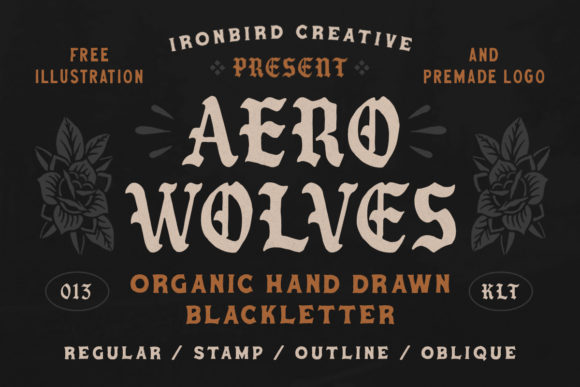
Introducing Aero Wolves Font, a captivating and bold blackletter font that is bound to elevate your creative projects to new heights! Created by ironbirdcreative, this font is specifically designed for T-shirt design enthusiasts who crave uniqueness and originality.
With its cool and edgy vibe, Aero Wolves Font is more than just a typography choice; it's a statement. Its blackletter style adds a touch of vintage charm, while its boldness exudes confidence and strength. Whether you're designing a T-shirt for a special occasion, a brand, or simply expressing your personal style, this font is here to make a lasting impression.
What sets Aero Wolves Font apart is its masterful design that captures attention and leaves a lasting impact. Each letter is meticulously crafted to perfection, ensuring that every word you create becomes a work of art. From its sharp and angular edges to its intricate details, this font embodies the essence of creativity and craftsmanship.
Unleash your imagination and let Aero Wolves Font be your creative companion. Its versatility knows no bounds, allowing you to experiment with various styles and designs. Whether you're going for a bold and rebellious look or a refined and elegant aesthetic, this font adapts effortlessly to your vision.
Embrace the power of emotions with Aero Wolves Font. Its captivating presence evokes a sense of adventure, mystery, and individuality. Let your designs speak volumes and connect deeply with your audience. Whether you're aiming to inspire, motivate, or provoke thought, this font will amplify the impact of your message.
In conclusion, Aero Wolves Font is the ultimate choice for anyone seeking a font that goes beyond the ordinary. Its captivating blackletter style, masterful design, and emotive power make it a must-have for T-shirt design enthusiasts. With Aero Wolves Font, your creative ideas will soar to new heights, leaving a lasting impression on all who encounter them.